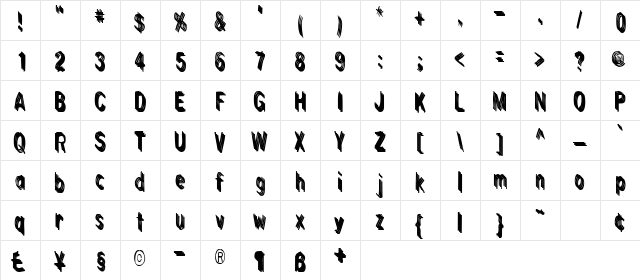
Sins of Rhonda Regular
Design Context for Sins of Rhonda Typeface
Sins of Rhonda is a composed and adaptable typeface that performs quietly and consistently across a wide range of design contexts.